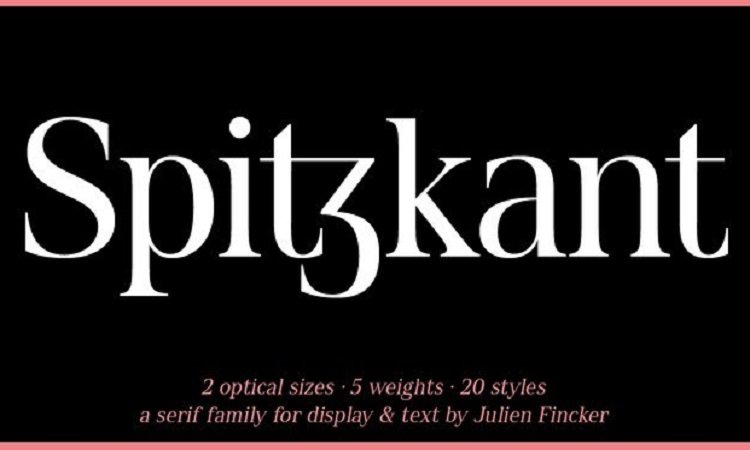
Spitzkant Serif Font
Spitzkant Font is a strong serif font with medium contrast. Carefully designed with a short ascender to give a solid look, also the sharp serif makes the letters look more strong.
Spitzkant  is a display-type which perfect for a headline, sub-headline, and short body text for magazine, books, fashion, quotes, hipster t-shirt, signboard, logo, and etc .